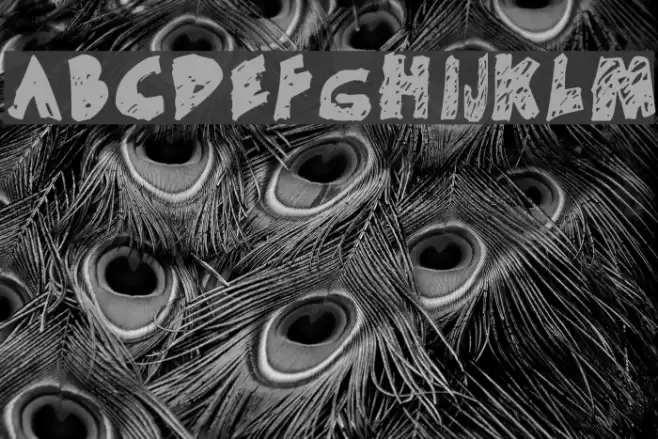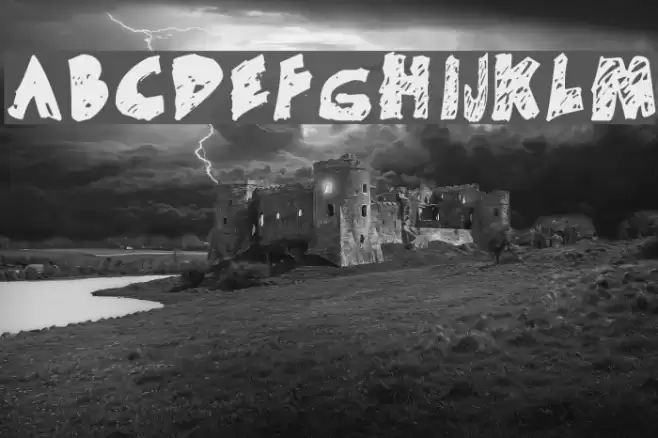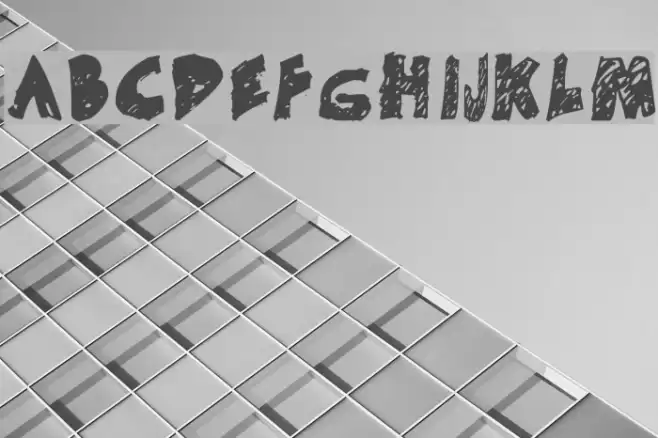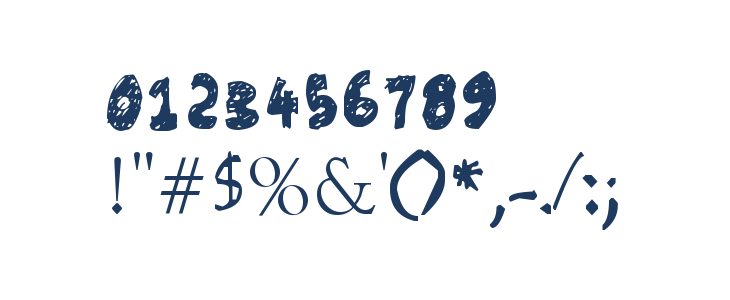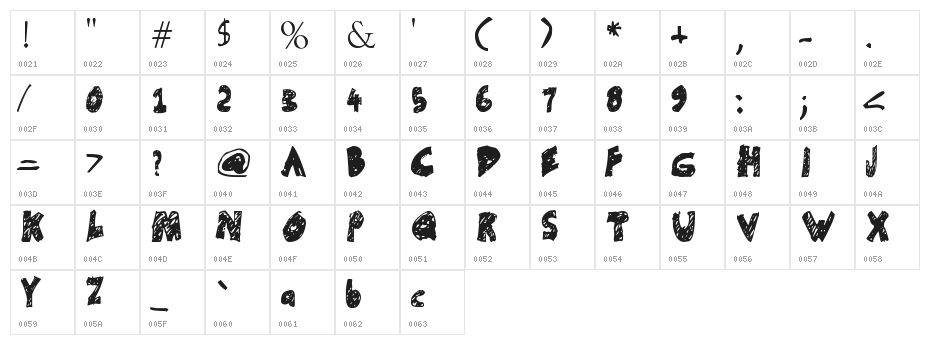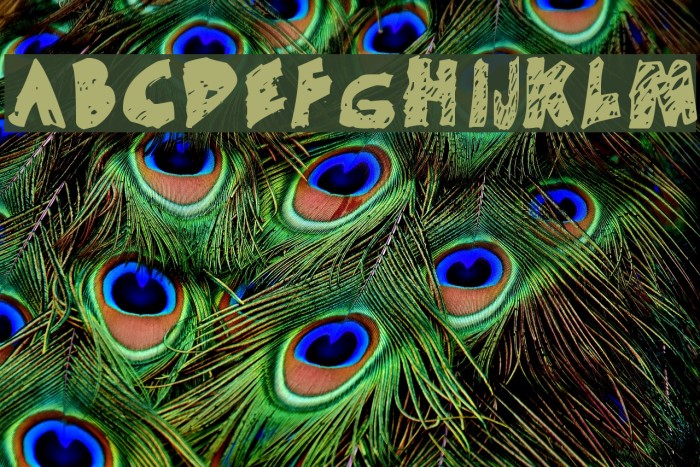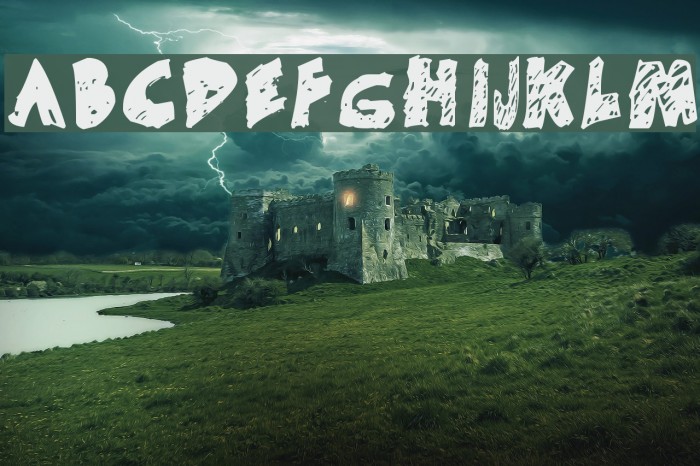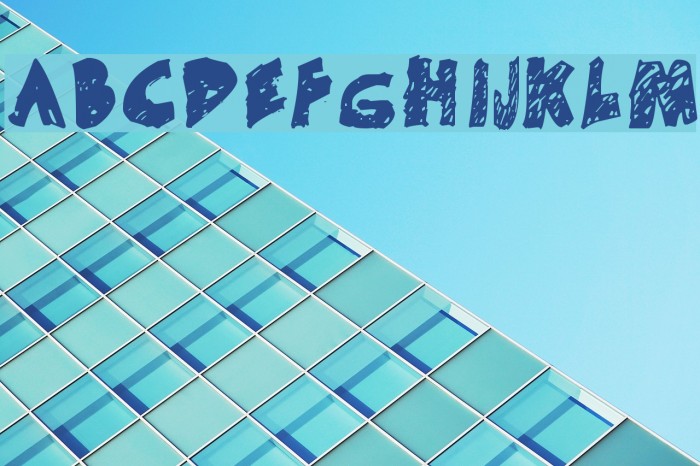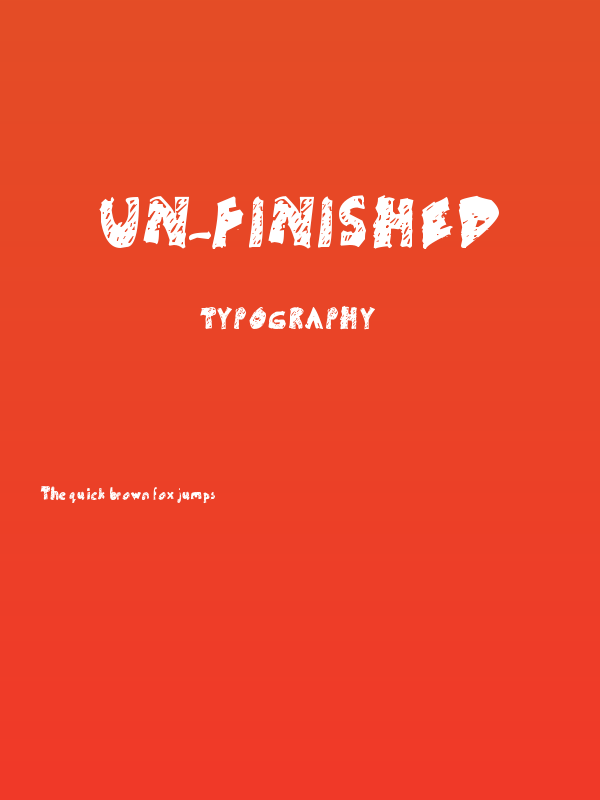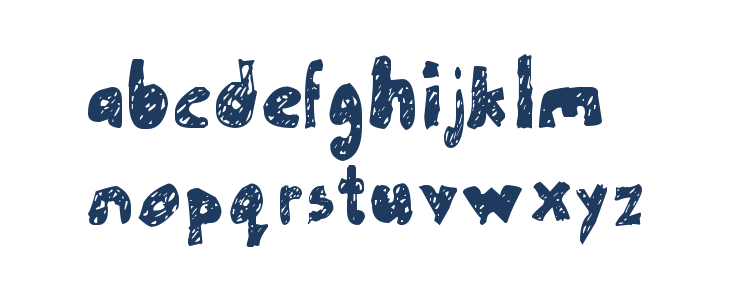
Un-finished Font
Un-finished Description
This font features a bold, hand-drawn style with a playful and artistic flair. The characters are filled with scribbled textures, giving them a dynamic and energetic appearance. Each letter and number has a unique, irregular shape, contributing to an overall informal and whimsical look. The font is highly decorative, making it ideal for creative projects that require a standout, eye-catching typeface. The bold strokes and uneven edges add to its charm, making it suitable for designs that aim to convey a sense of fun and creativity.
A bold, hand-drawn font with a playful, textured style from Handwritten fonts.
- Proposed Projects: Ideal for children's book covers, playful posters, artistic branding, and creative social media graphics.